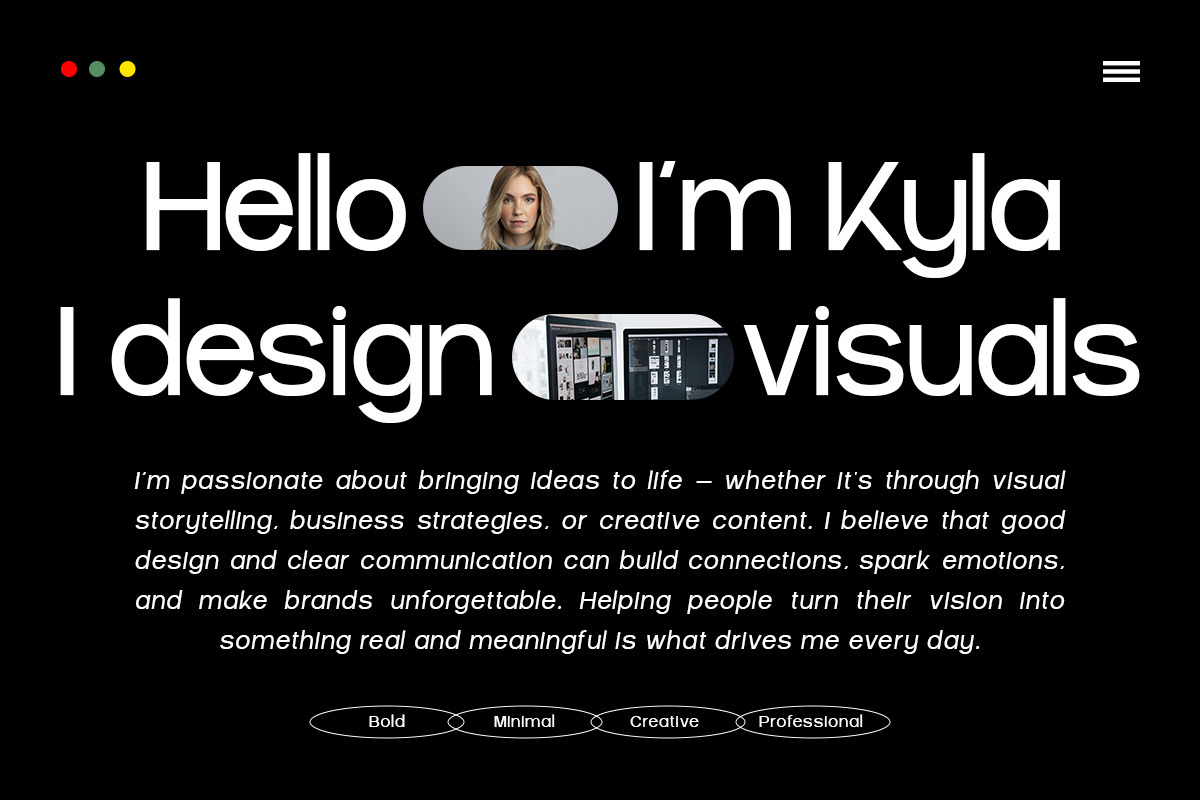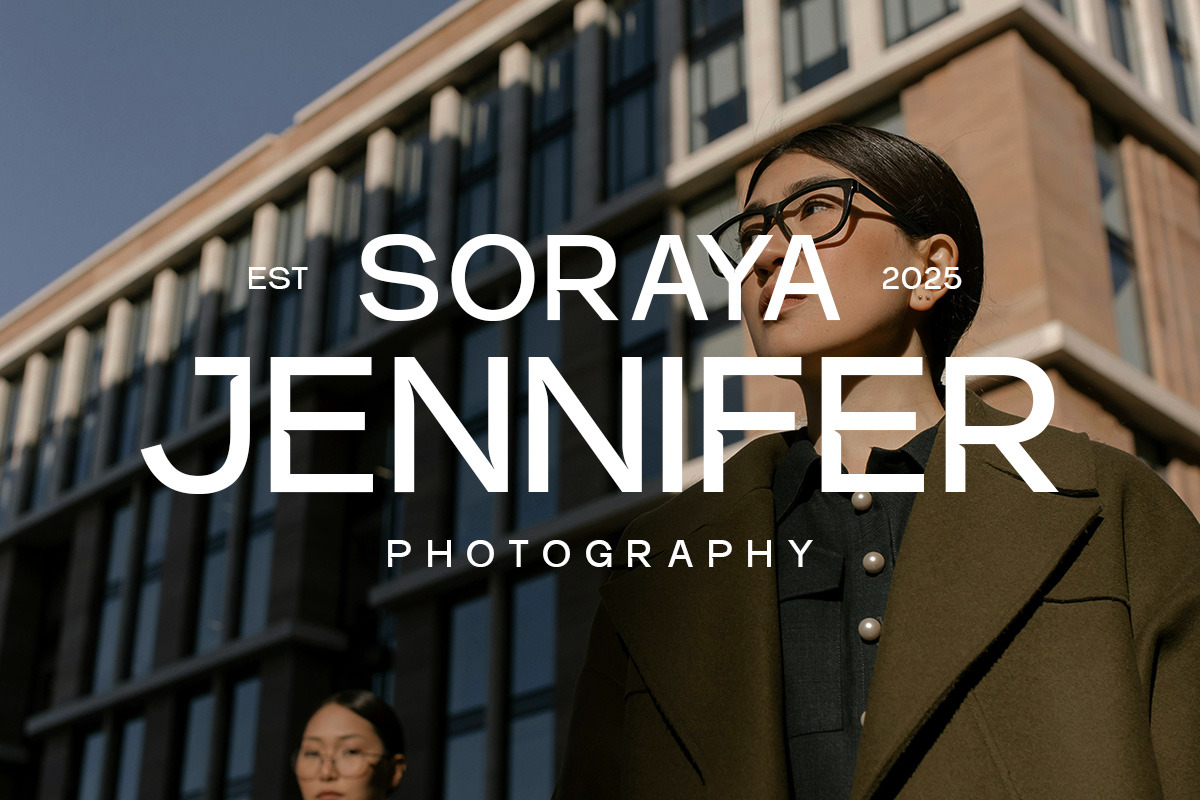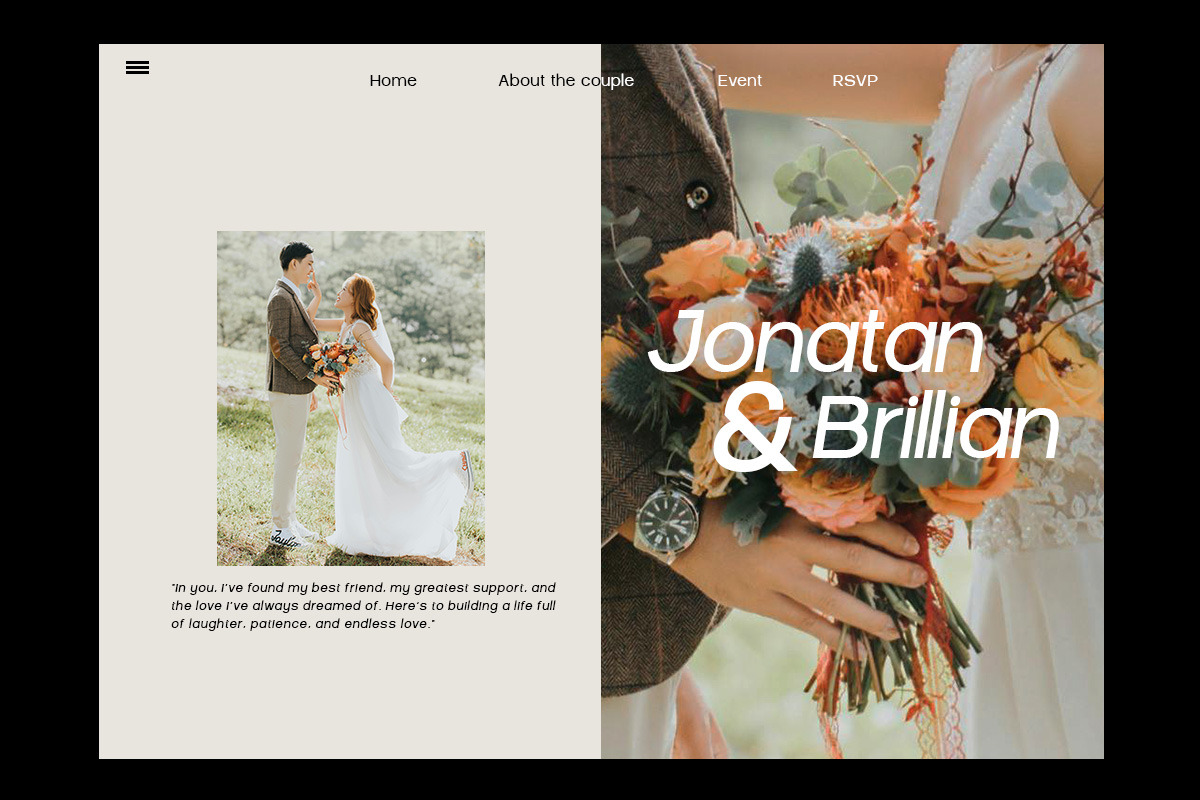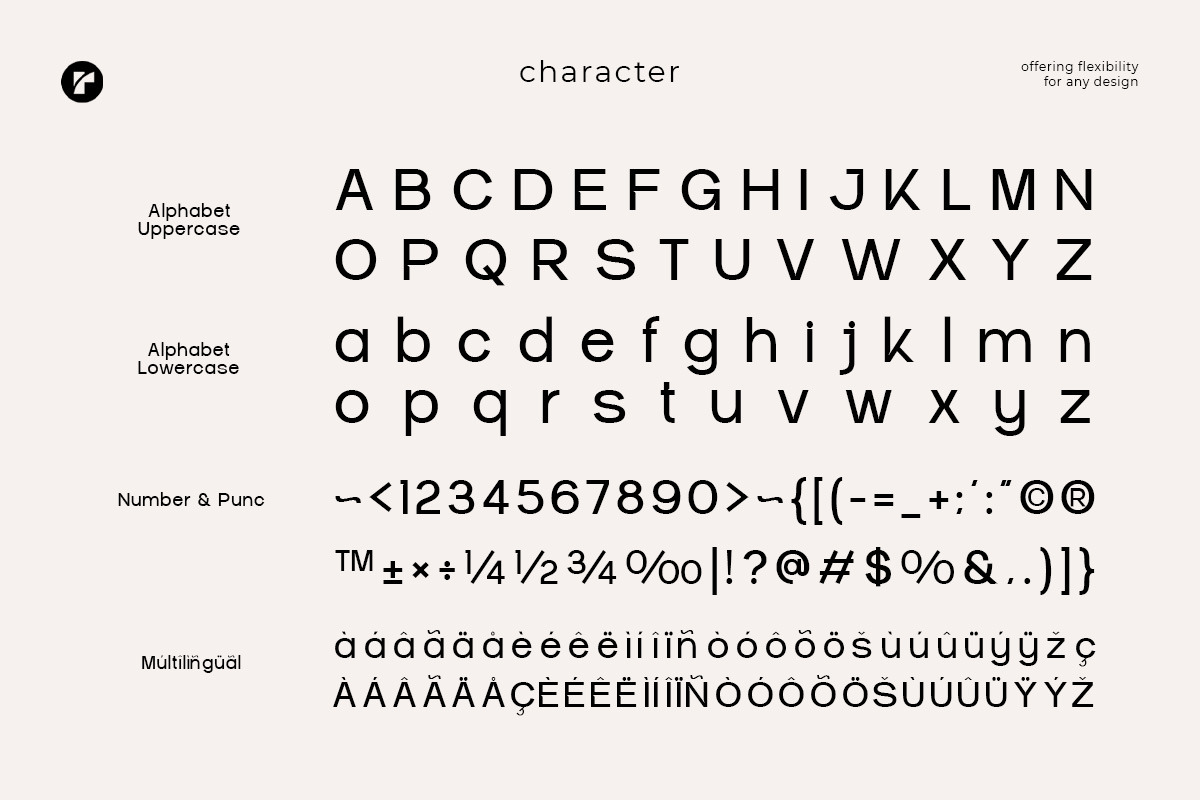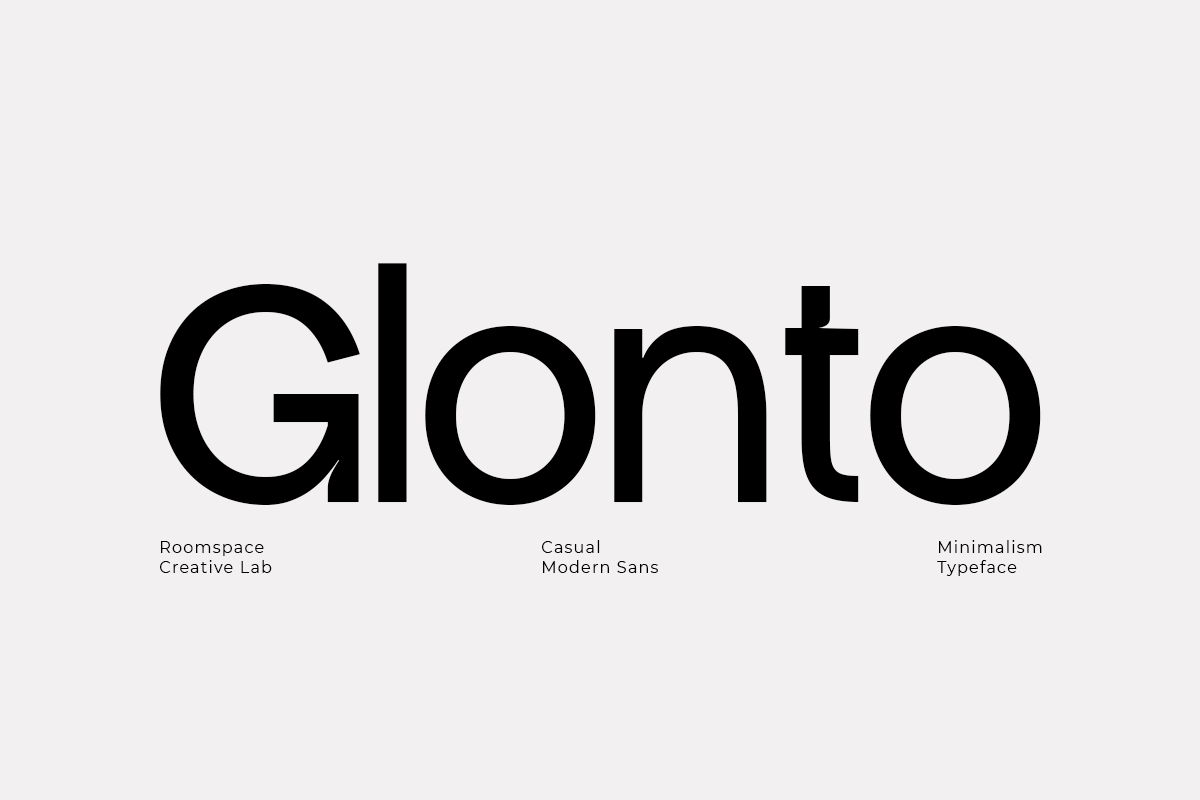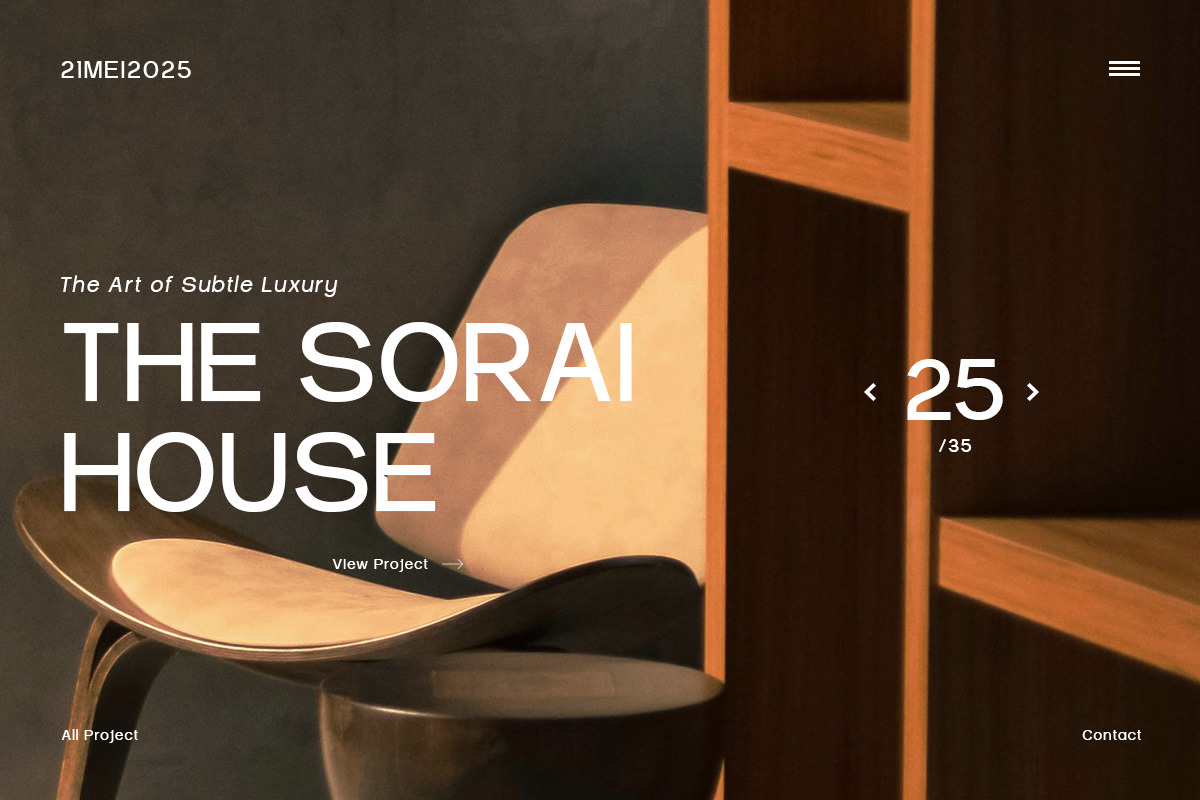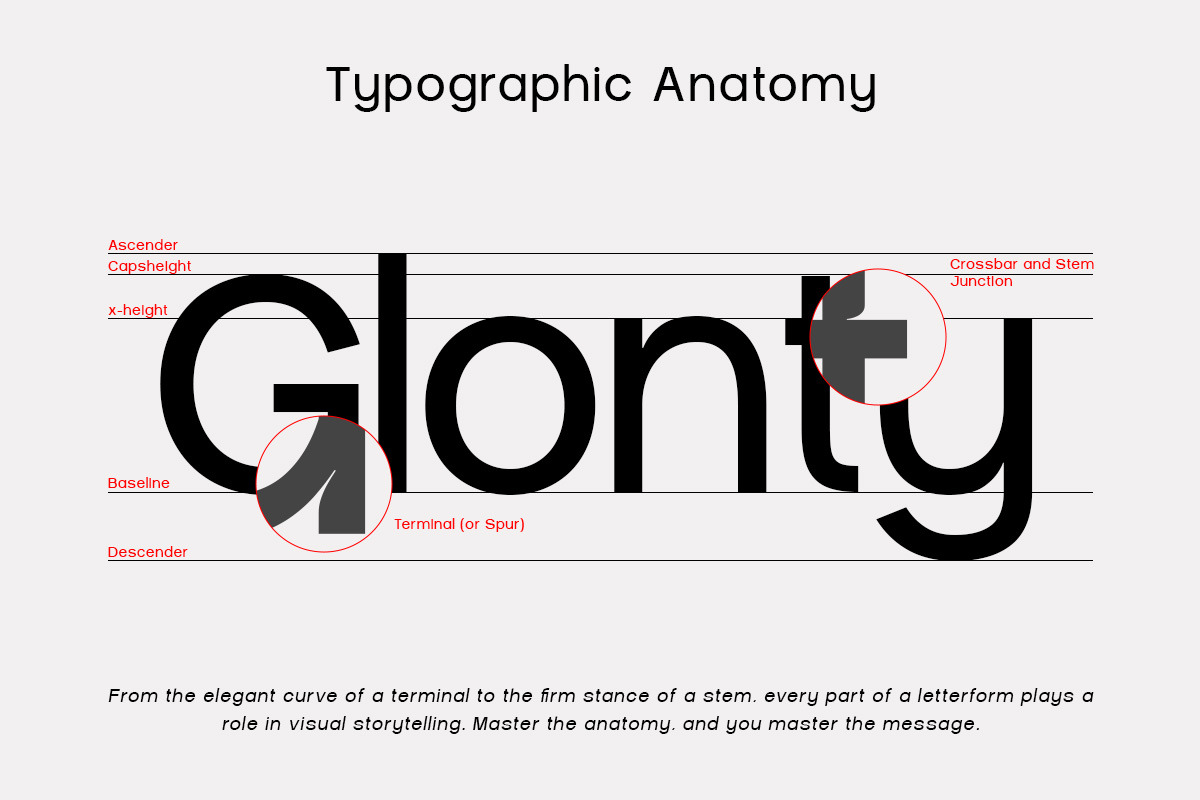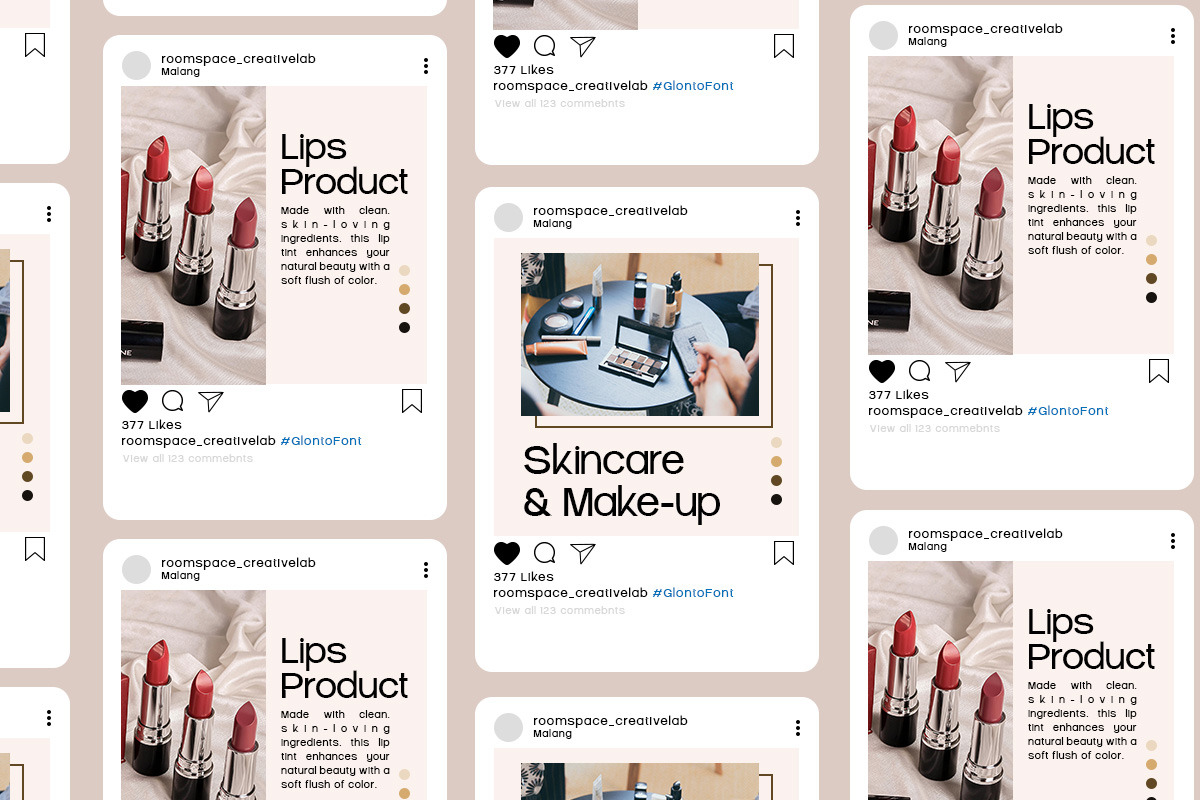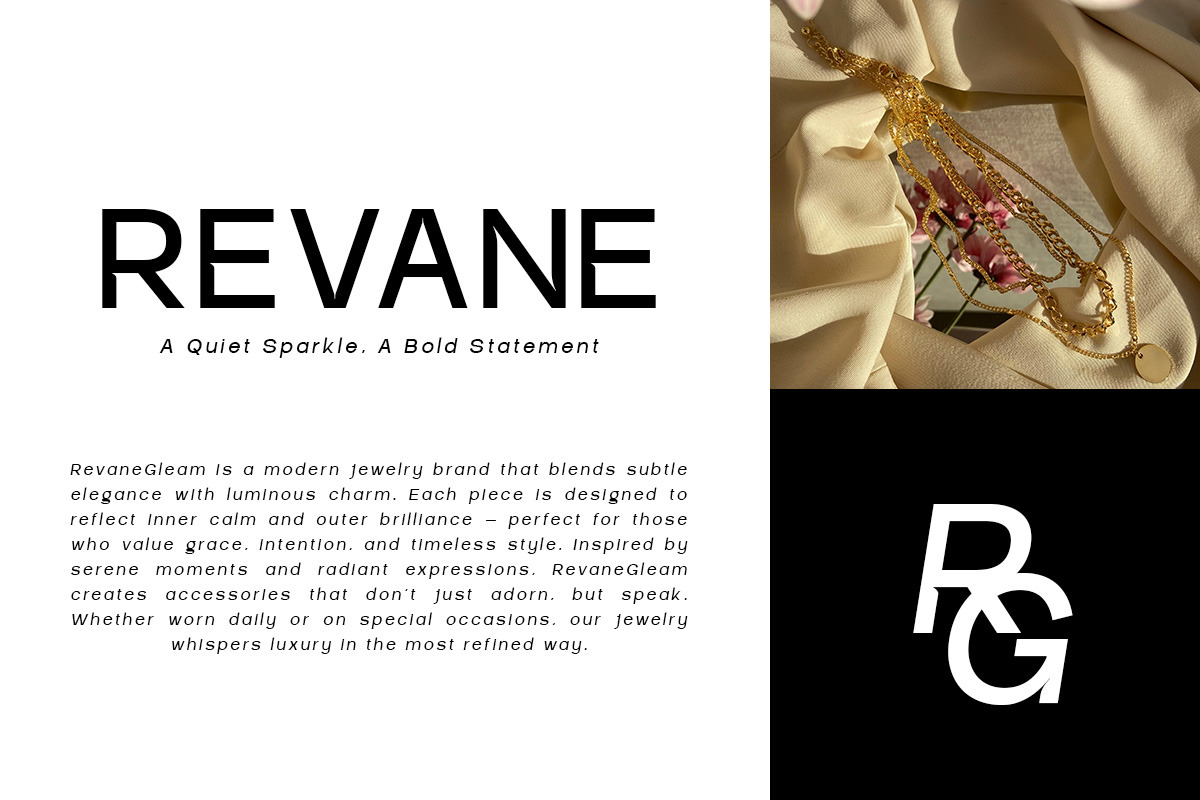
Glonto - Minimalist Typeface
Glonto is a clean and modern sans serif font designed with simplicity and elegance in mind. Perfectly suited for branding, UI/UX design, editorial projects, and creative work, Glonto offers a professional and fresh look that makes your designs stand out.
With its balanced proportions and crisp lines, Glonto ensures excellent readability and a contemporary aesthetic. This versatile typeface works great for logos, headlines, posters, digital and print designs.